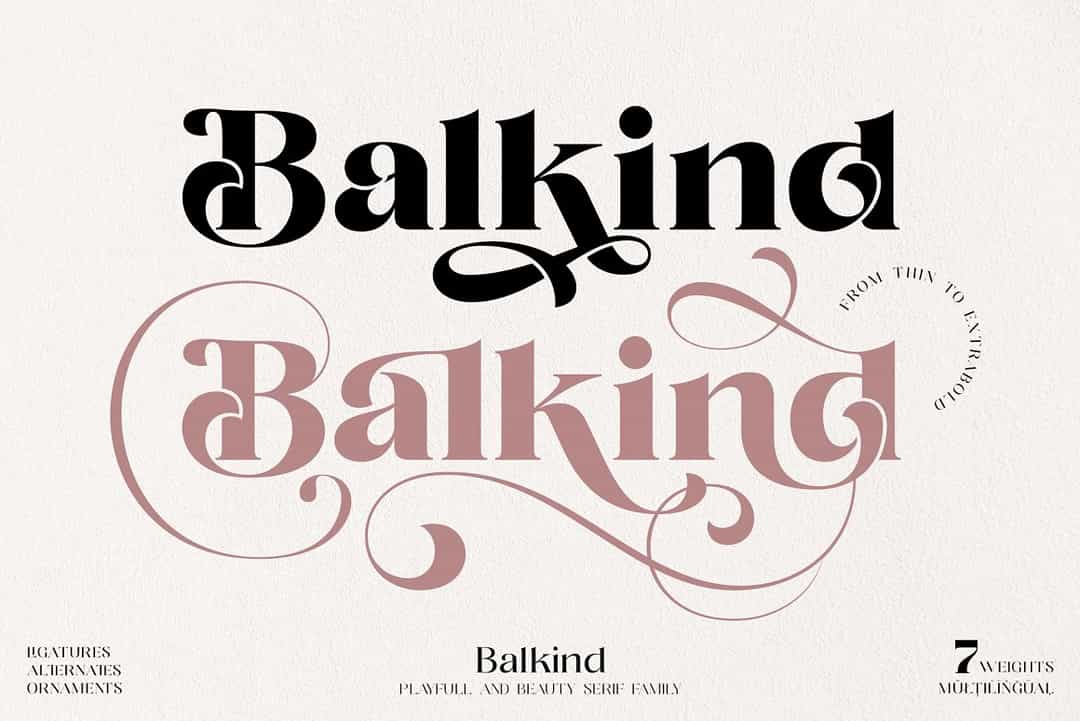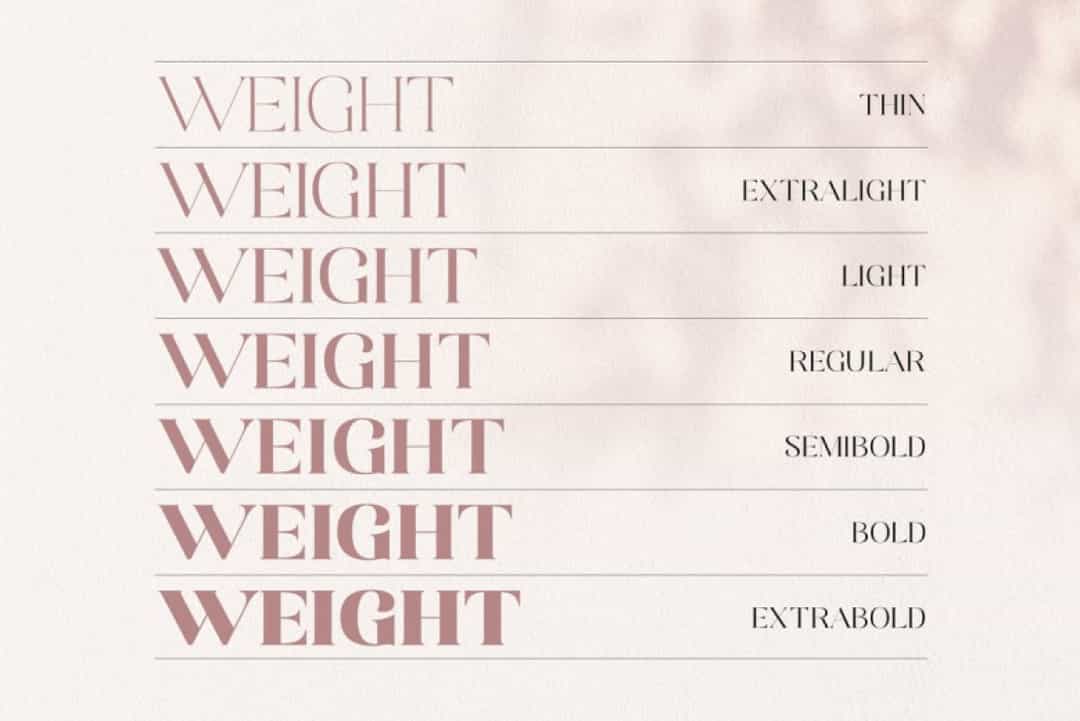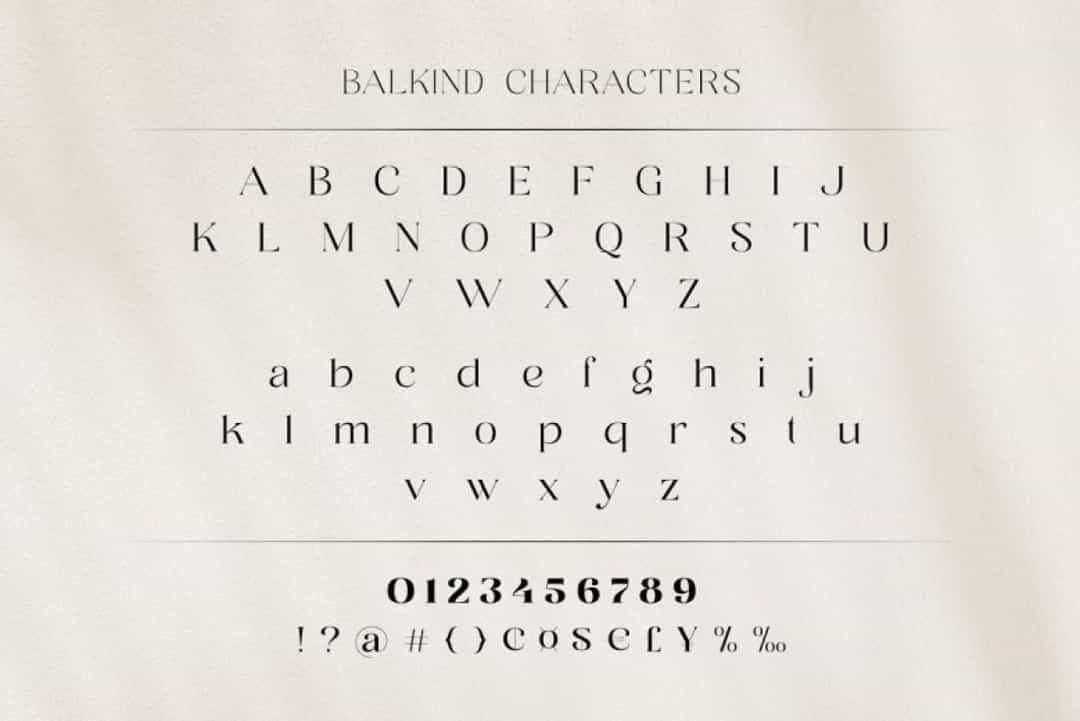
Balkind can be described as an elegant serif font featuring distinctive Ligatures created and shared by Ekahermawan. This playful family of fonts ranges from thin to ExtraBold weights with special attention paid to making each typography result more distinctive and visually appealing through ligatures and alternate characters designed especially for Balkind Serif.